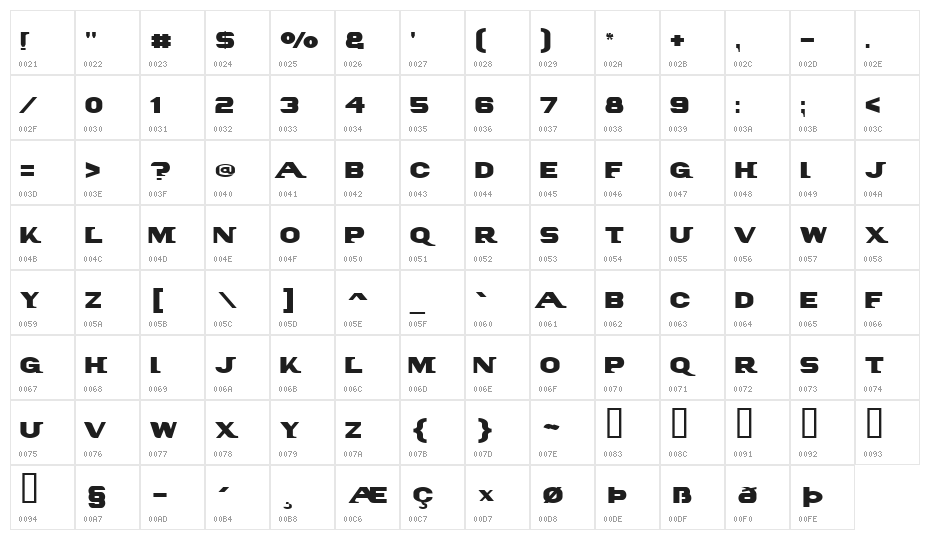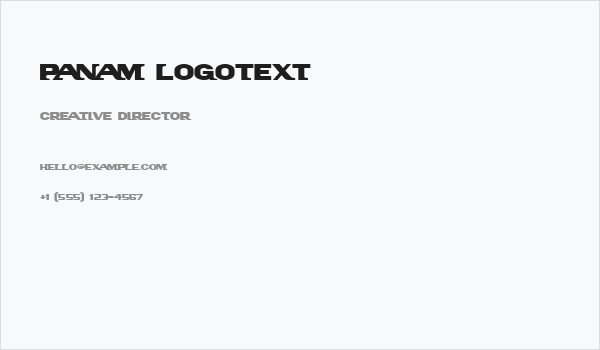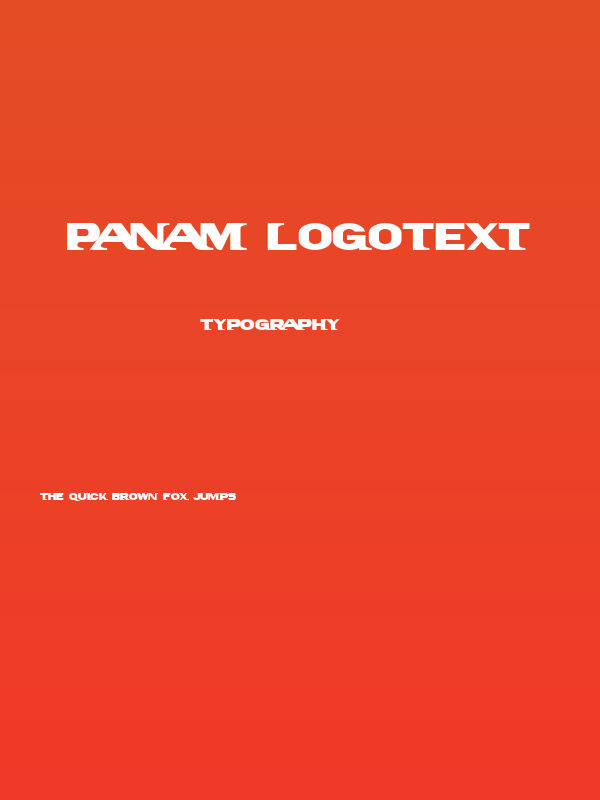
PanAm LogoText Font
PanAm LogoText Description
This font features a bold and striking design with a distinctly modern aesthetic. The characters are wide and have a strong presence, making them ideal for impactful headlines and branding. The uppercase letters are particularly prominent, with a geometric style that emphasizes straight lines and sharp angles. The numbers and special characters maintain this boldness, ensuring consistency across all text elements. The font's design is reminiscent of mid-20th-century styles, offering a nostalgic yet timeless appeal. Its clean lines and solid structure make it versatile for various design applications.
| Proposed Projects | This font is perfect for branding, advertising campaigns, poster designs, and any project requiring a strong visual impact. |